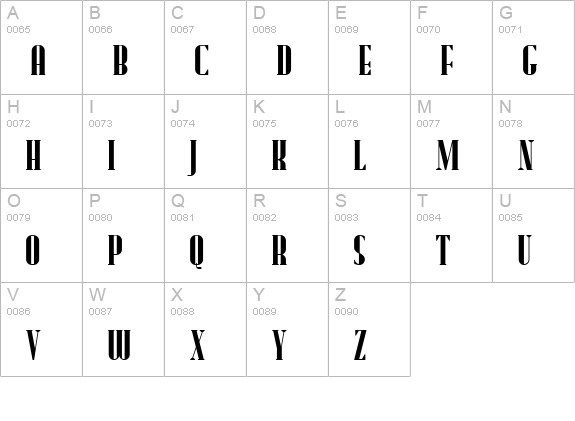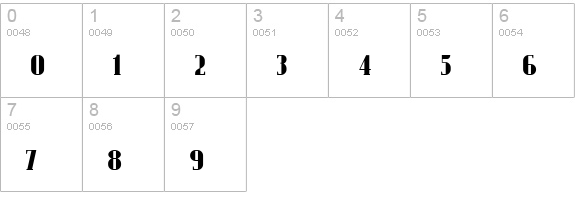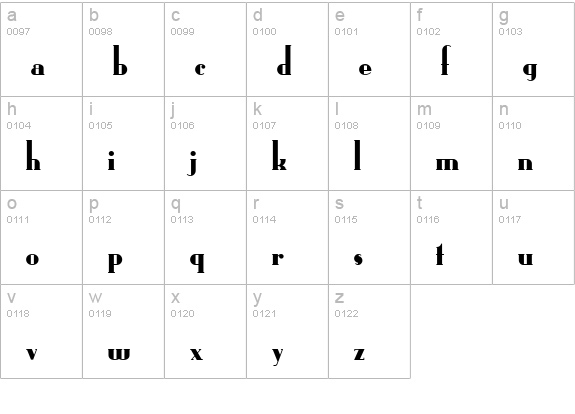
Radio Ranch NF font is a charming and stylish typeface that exudes a vintage Western vibe. With its bold and eye-catching design, this font is perfect for creating standout headlines, posters, and branding materials. The intricate details and unique strokes of Radio Ranch NF give it a distinct personality that sets it apart from other fonts. What makes Radio Ranch NF even more appealing is that it is completely free to download at FontsMarket.com. Whether you're a designer looking for a font to add a touch of nostalgia to your project or a hobbyist wanting to experiment with different styles, Radio Ranch NF is a versatile and accessible option. Embrace the retro charm of Radio Ranch NF and elevate your designs with this delightful font that is just a click away.